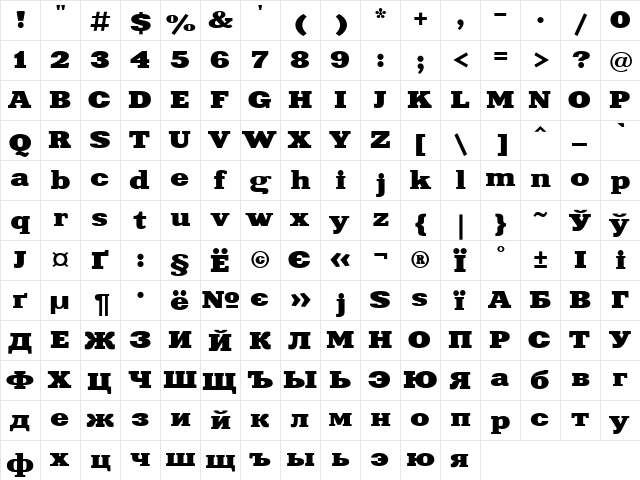
UkrainianXeniaExtended Bold
Design Context for UkrainianXeniaExtended Typeface
UkrainianXeniaExtended is a composed and adaptable typeface that performs quietly and consistently across a wide range of design contexts. Its bold stroke weight gives it real presence on the page.